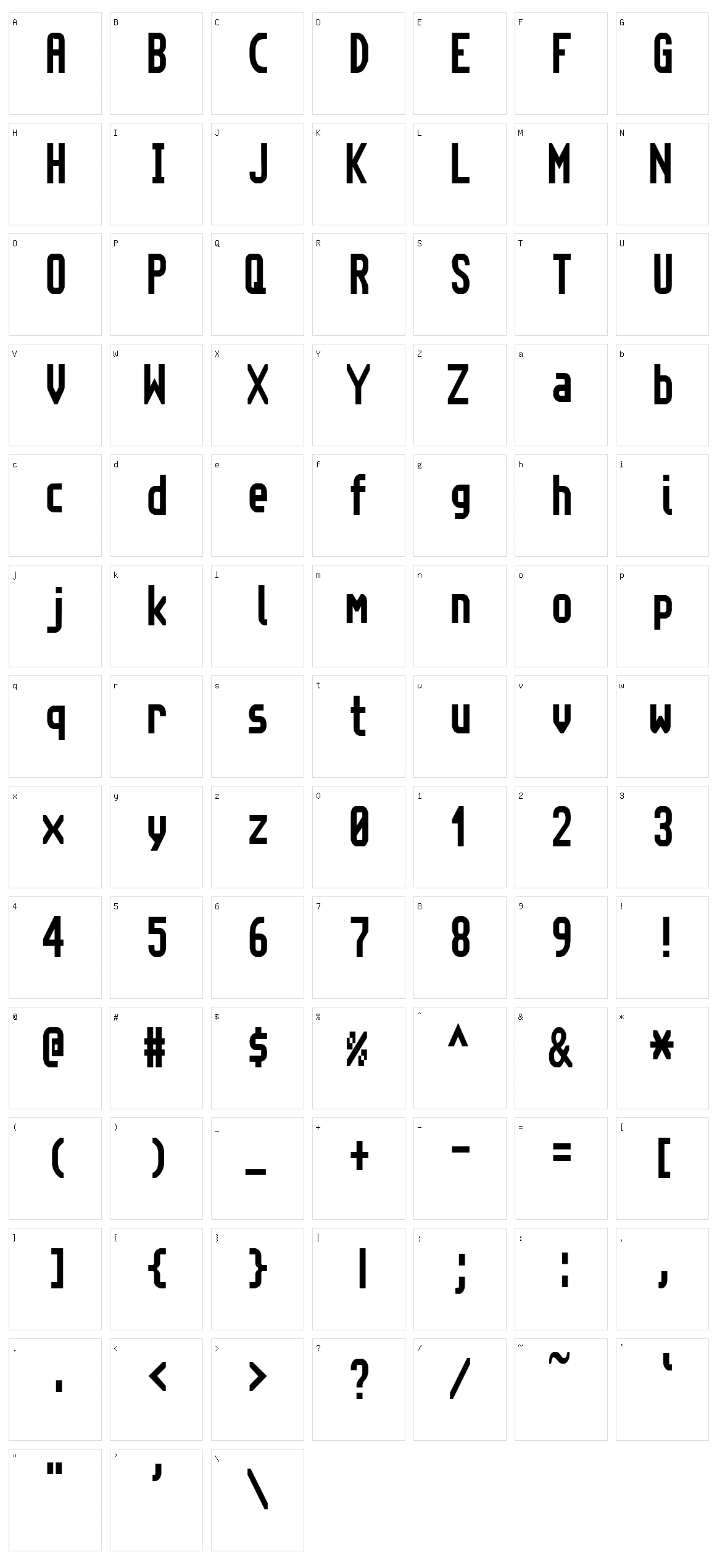
Topaz New
Designed by: Alan Tinsley
FONT INFORMATION
This font, 'Topaz New', is designed to be used at 12 points.
At this size, on a 640x480 PC screen it is very similar to the
Amiga Topaz font at size 8 on a 640x256 Amiga screen.
This version contains the ASCII characters 32-127 inclusive.
All other printing characters are represented by a '!'.
It is a monospaced font. That is, all the characters have the
same width. I created this font mainly for use in viewing /
creating ASCII art and as such I think it gives the best results
(Well I would ;) It also makes your PC look a bit more AMIGA-like!